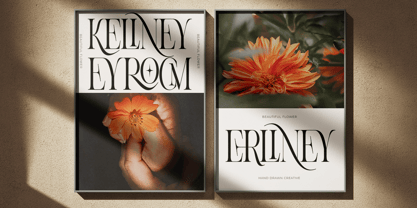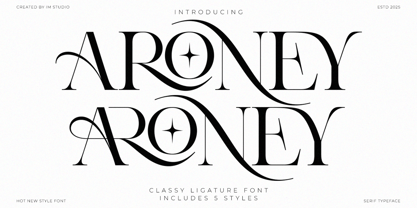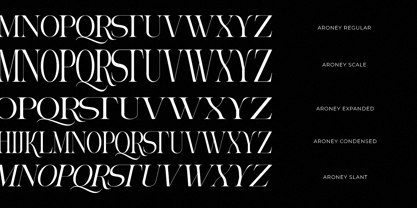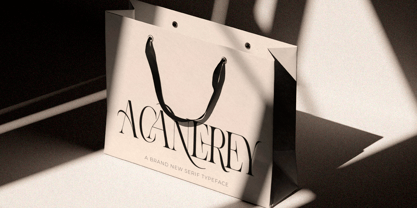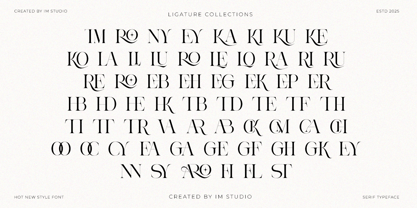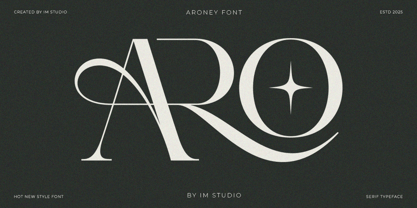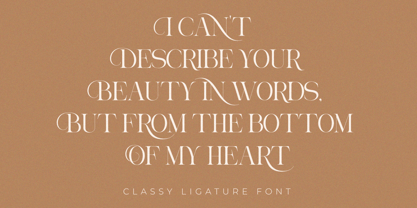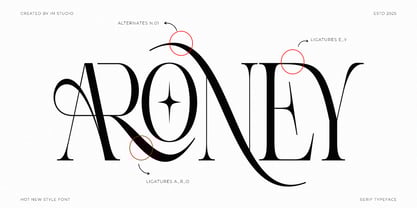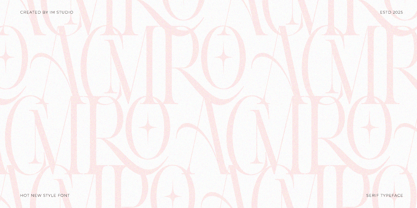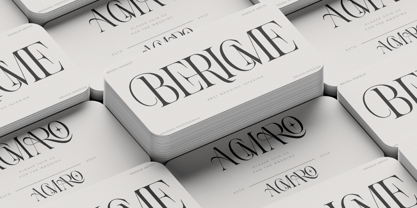
Aroney
by IM Studio
The Aroney Font Family was designed by Ikhsan Maulana and published by IM Studio. Aroney contains 5 styles and family package options.
Aroney Family – Elegant & Unique Typeface for Branding Aroney Family is an elegant font with a unique touch specifically designed for branding and logo design. Inspired by our experience designing visual identities for various companies, this font is designed to meet the need for a classy yet distinctive typographic style. With Aroney Family, you can create an elegant, professional, and memorable logo. This font is also perfect for a variety of other creative design needs. Full features: Capital font Numbers Punctuation Multilingual symbols Hope you enjoy our font, and if you have any questions, Feel free to send me a message and I'll be happy to help :)